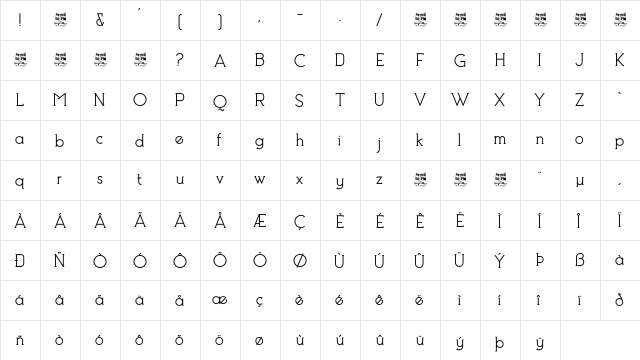
Debock Personal Use Regular
| Foundry | Tama Putra |
| Designer | Tama Putra |
Design Context for Debock Personal Use Typeface
Debock Personal Use is a composed and adaptable typeface that performs quietly and consistently across a wide range of design contexts.